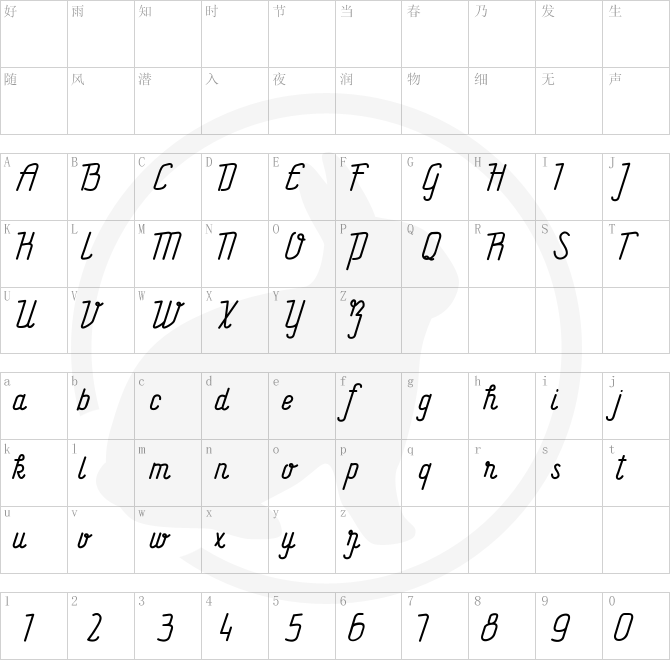
- Font Name:La Bataille du Sanctuaire
La-Bataille-du-Sanctuaire.ttf is a very beautiful artistic font, La-Bataille-du-Sanctuaire.ttf is widely used in the design and printing of various books and pictures,La-Bataille-du-Sanctuaire.ttf has a strong visual impact,La-Bataille-du-Sanctuaire.ttf is a commonly used font in newspapers, magazines and books, and is used in posters, e-commerce Poster design, store design, logo design, font design and other fields.La-Bataille-du-Sanctuaire.